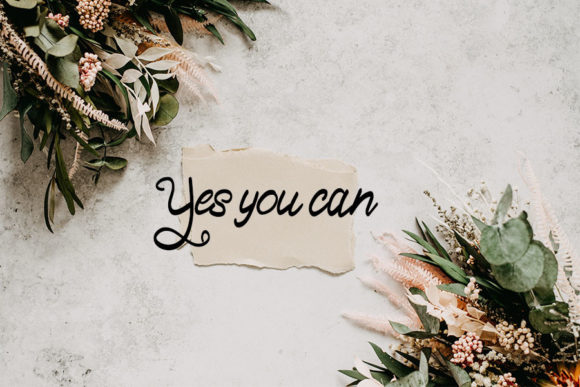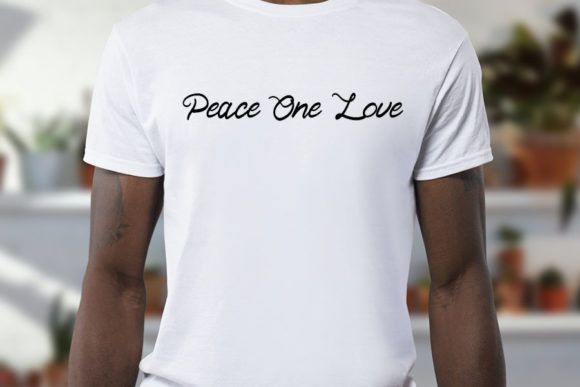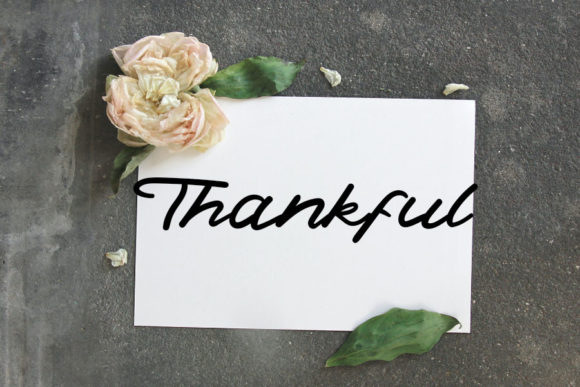
Introducing Healthy Routine Font: The Perfect Addition to Your Creative Projects
Are you tired of using the same old fonts in your creative projects? Do you want to add a touch of fun and playfulness to your designs? Look no further than the Healthy Routine font! This script font is the perfect way to make your ideas stand out and add a dash of personality to your work.
What is Healthy Routine Font?
Healthy Routine is a fun and playful script font that is perfect for creative projects. Its unique and whimsical design makes it ideal for adding a personal touch to your work. Whether you’re a designer, crafter, or DIY enthusiast, this font is sure to inspire your next project.
Key Features of Healthy Routine Font
- Playful and Fun Design: Healthy Routine font has a playful and fun design that is sure to add a smile to your face. Its whimsical curves and lines make it perfect for creative projects that require a personal touch.
- Script Font: This font is a script font, which means it’s perfect for adding a touch of elegance and sophistication to your designs.
- Easy to Read: Despite its playful design, Healthy Routine font is easy to read and understand, making it perfect for use in a variety of creative projects.
- Versatile: This font is versatile and can be used in a variety of creative projects, from crafting and DIY tutorials to graphic design and digital art.
How to Use Healthy Routine Font in Your Creative Projects
Using Healthy Routine font in your creative projects is easy! Here are a few ideas to get you started:
- Crafting Tutorials: Add a personal touch to your crafting tutorials with Healthy Routine font. Use it to create fun and playful titles, headings, and descriptions.
- Graphic Design: Use Healthy Routine font in your graphic design projects to add a touch of whimsy and personality. It’s perfect for creating fun and playful logos, posters, and flyers.
- Digital Art: Add a personal touch to your digital art with Healthy Routine font. Use it to create fun and playful text overlays, titles, and descriptions.
- DIY Projects: Use Healthy Routine font to add a personal touch to your DIY projects. Create fun and playful labels, signs, and instructions to make your projects stand out.
Benefits of Using Healthy Routine Font
Using Healthy Routine font in your creative projects has several benefits, including:
- Unique and Playful Design: Healthy Routine font has a unique and playful design that will make your projects stand out from the crowd.
- Easy to Read: This font is easy to read and understand, making it perfect for use in a variety of creative projects.
- Versatile: Healthy Routine font is versatile and can be used in a variety of creative projects, from crafting and DIY tutorials to graphic design and digital art.
- Inspires Creativity: This font is sure to inspire your creativity and add a personal touch to your projects.
| Font Name | Healthy Routine Font |
| Author | muhawk47 |
In conclusion, Healthy Routine font is a fun and playful script font that is perfect for creative projects. Its unique and whimsical design makes it ideal for adding a personal touch to your work. Whether you’re a designer, crafter, or DIY enthusiast, this font is sure to inspire your next project. So why not give it a try and see how it can make your creative projects stand out?